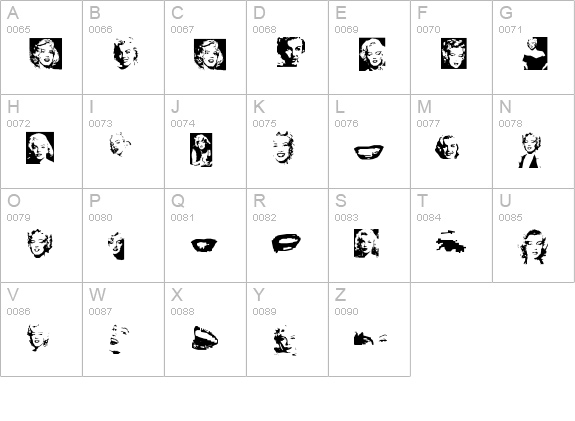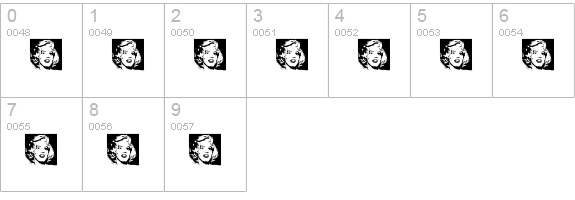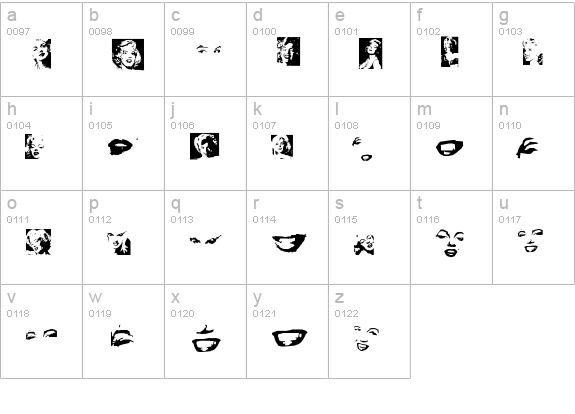
Monroe Dingbats Font Details
Monroe Dingbats font is a whimsical and playful typeface that adds a touch of fun and creativity to any design project. This unique font features a variety of quirky and creative dingbat characters that are perfect for adding decorative elements to your designs. Whether you're working on invitations, posters, or social media graphics, Monroe Dingbats font is sure to bring a smile to your audience's face. The best part is that Monroe Dingbats font is completely free to download! You can easily access this font at FontsMarket.com and start incorporating its charming characters into your projects right away. Don't miss out on the opportunity to add a touch of whimsy to your designs with Monroe Dingbats font today!